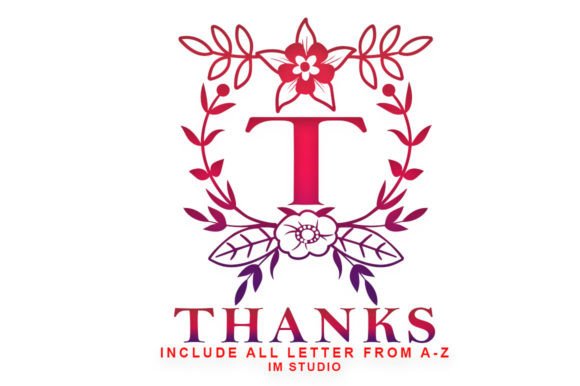
Introduction to Melissa Monogram Font Font
Fonts play a crucial role in design, and the Melissa Monogram Font font is a typeface that brings both character and versatility to any project. Whether you’re working on a branding project, a website, or a print design, the Melissa Monogram Font font offers a unique style that can elevate your work.
Melissa Monogram is an elegant decorative font, featuring lovely ornaments.
Fall in love with its authentic feel and use it to create gorgeous wedding invitations, beautiful stationary art, eye-catching social media posts, and cute greeting cards .
Key Features of Melissa Monogram Font Font
Why Choose Melissa Monogram Font Font?
The Melissa Monogram Font font is more than just a typeface – it’s a design tool that helps you communicate your message with style and clarity. Its unique character set and versatile design make it suitable for a wide range of applications, from elegant invitations to bold headlines.
With its carefully crafted letterforms and balanced proportions, the Melissa Monogram Font font ensures readability and visual appeal across all mediums.
What makes Melissa Monogram Font font special?
The Melissa Monogram Font font stands out with its unique design, exceptional readability, and versatility across various design applications.